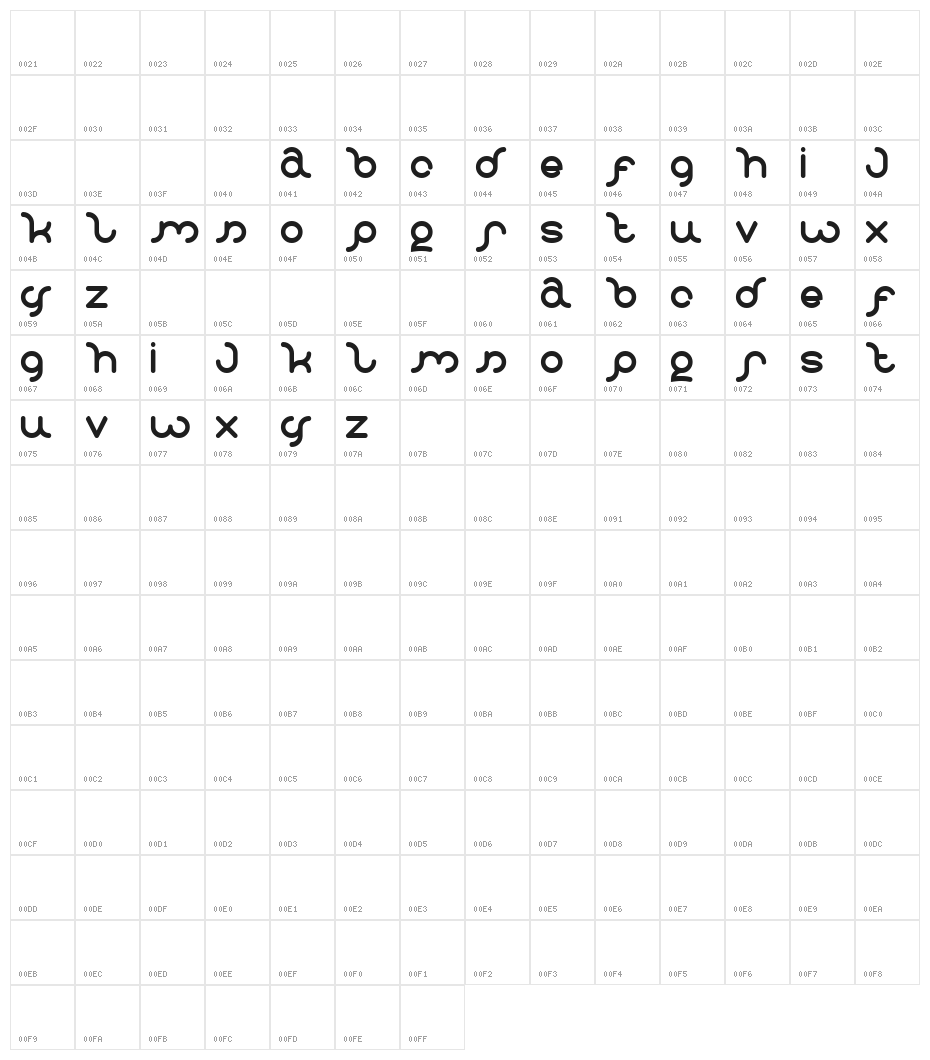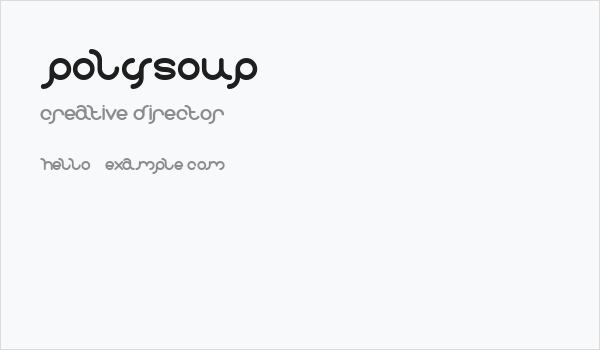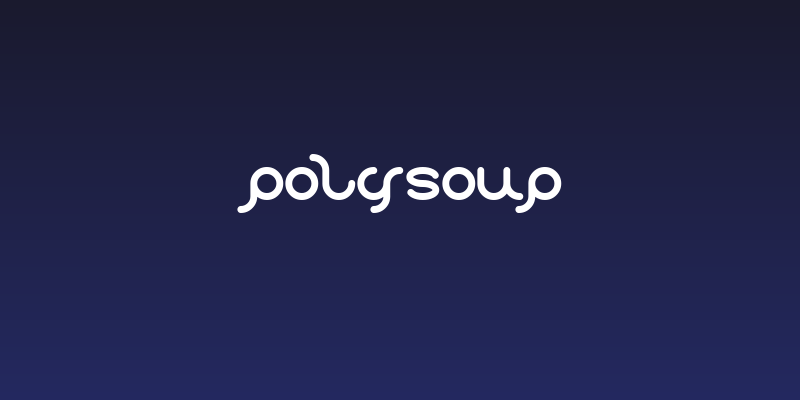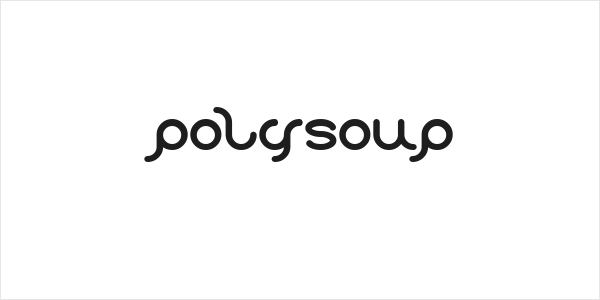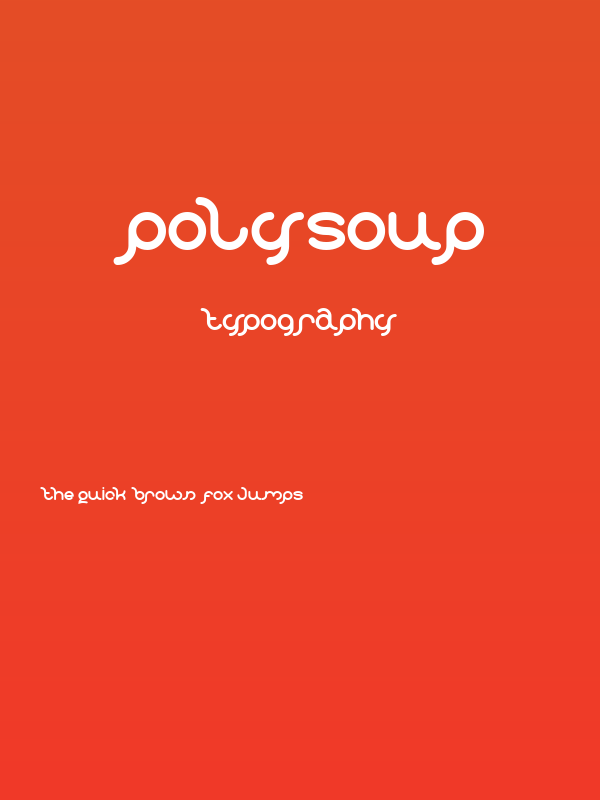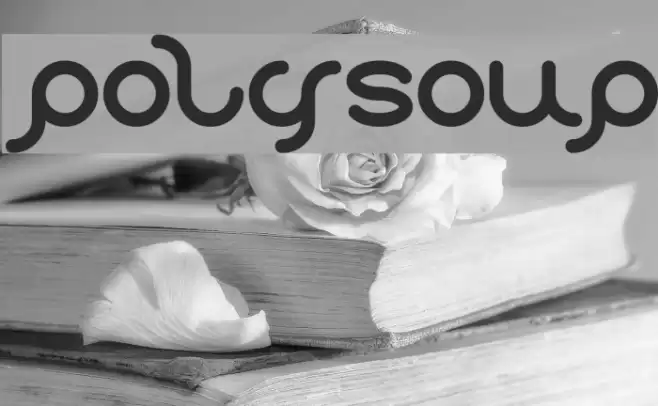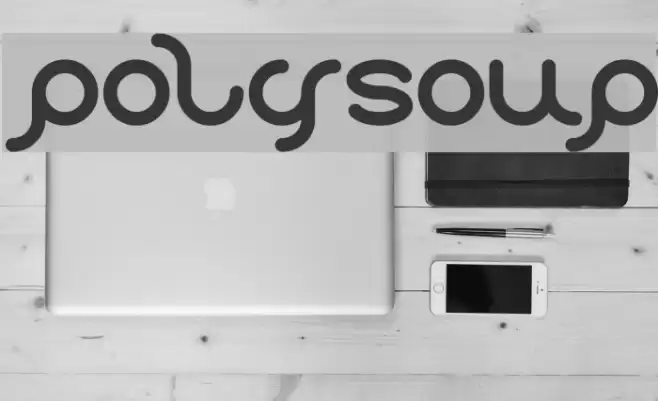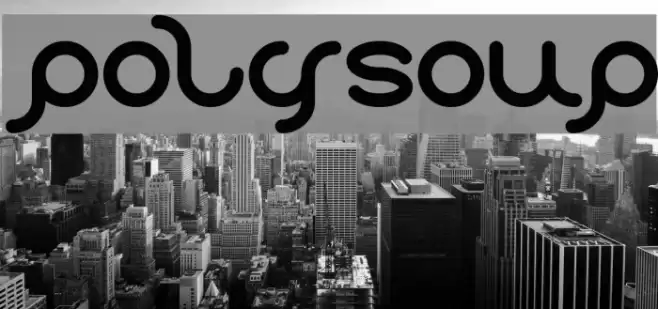
polysoup Font
polysoup Description
This font features a unique and playful design with rounded, loop-like characters that create a sense of movement and fluidity. The letters are interconnected with smooth curves, giving it a whimsical and artistic appearance. The overall look is modern and creative, making it stand out in any design. The font maintains a consistent stroke width, which adds to its cohesive and harmonious feel. Its distinct style is both eye-catching and versatile, suitable for a variety of creative projects.
| Overall Style | Modern, Playful |
| Use Case | Logos, Posters, Creative Branding |
| Proposed Projects | Ideal for creative branding, children's books, playful posters, and artistic logos. |